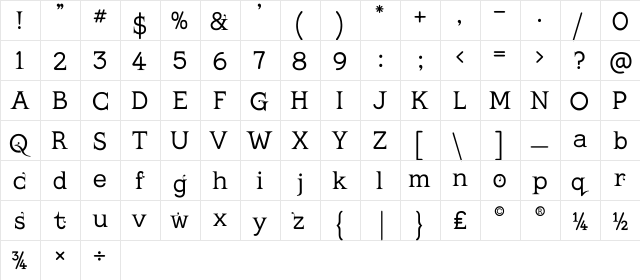
Kingthings Serifique Light Light
Design Context for Kingthings Serifique Light Typeface
Kingthings Serifique Light carries the refined structure of traditional serif typography, with bracketed terminals and considered proportions that communicate credibility and craft. Its slender proportions lend an understated elegance to any composition.
Pro Tip: Use Kingthings Serifique Light with generous line-spacing for the most refined reading experience — its light weight benefits from room between lines.